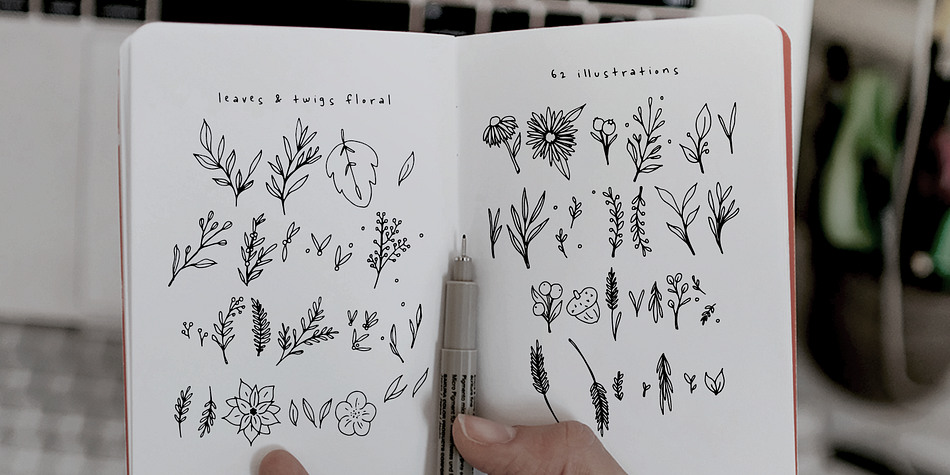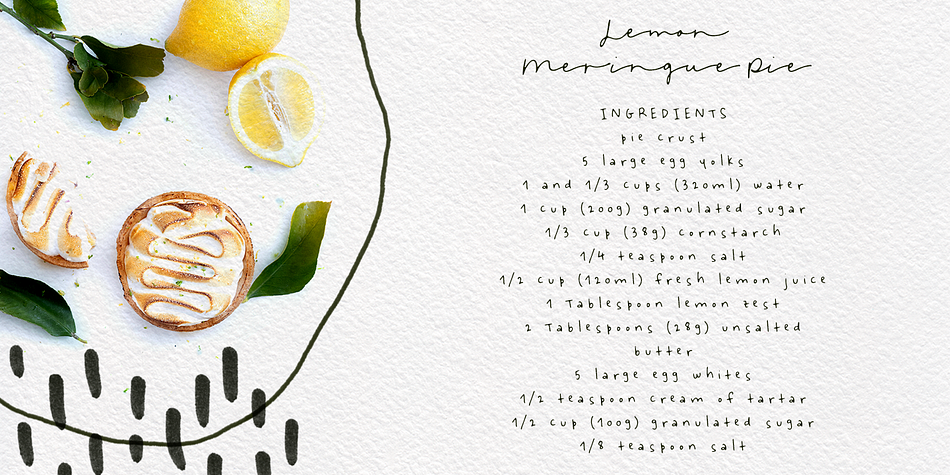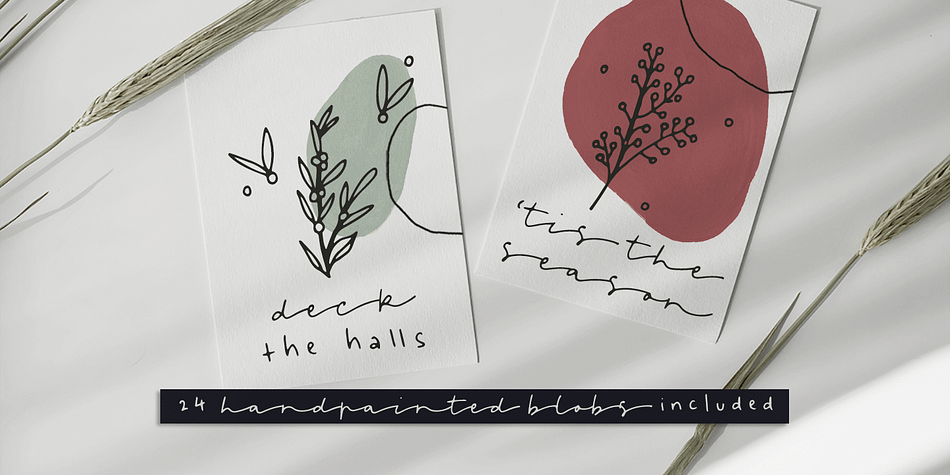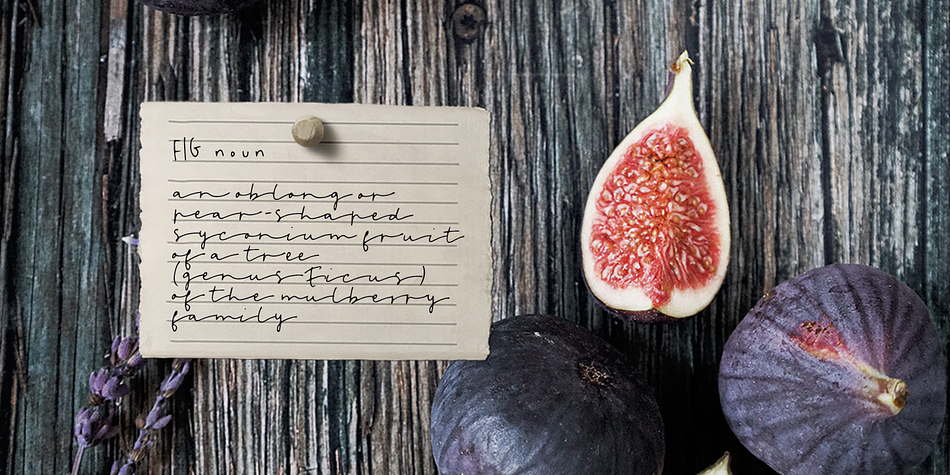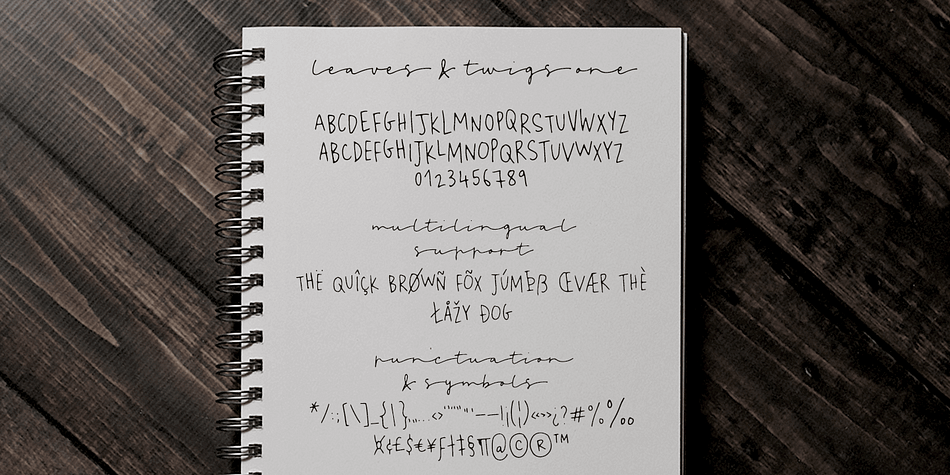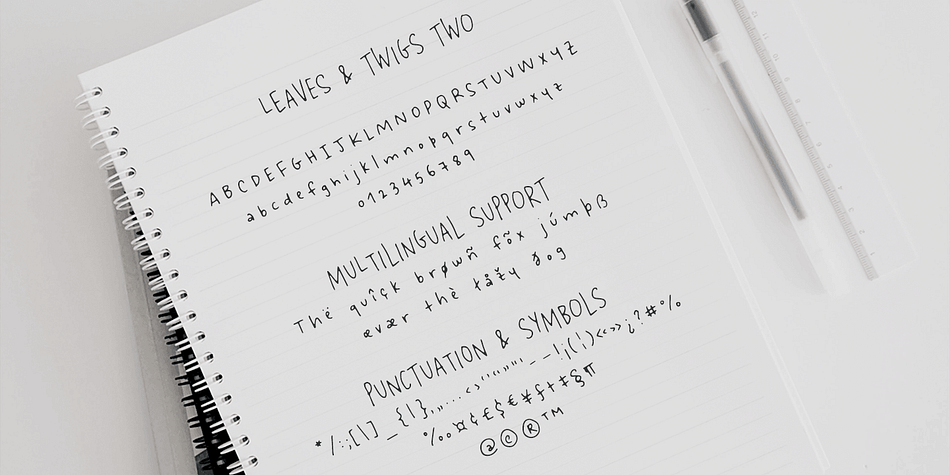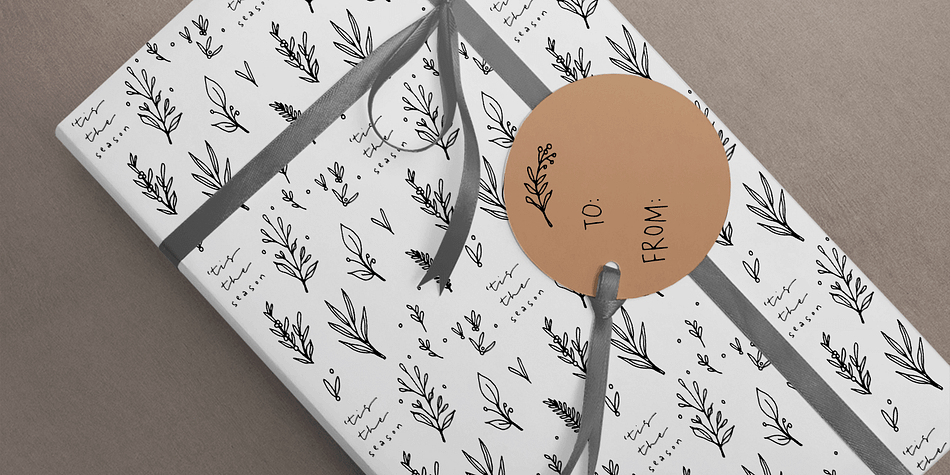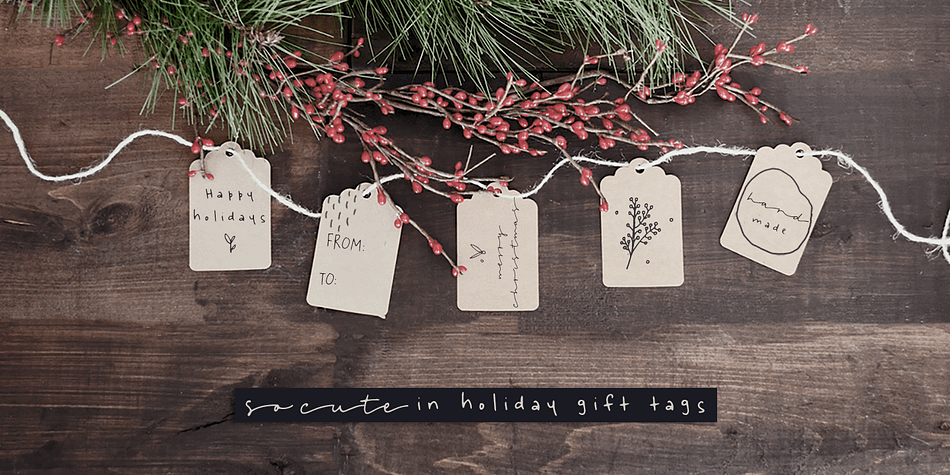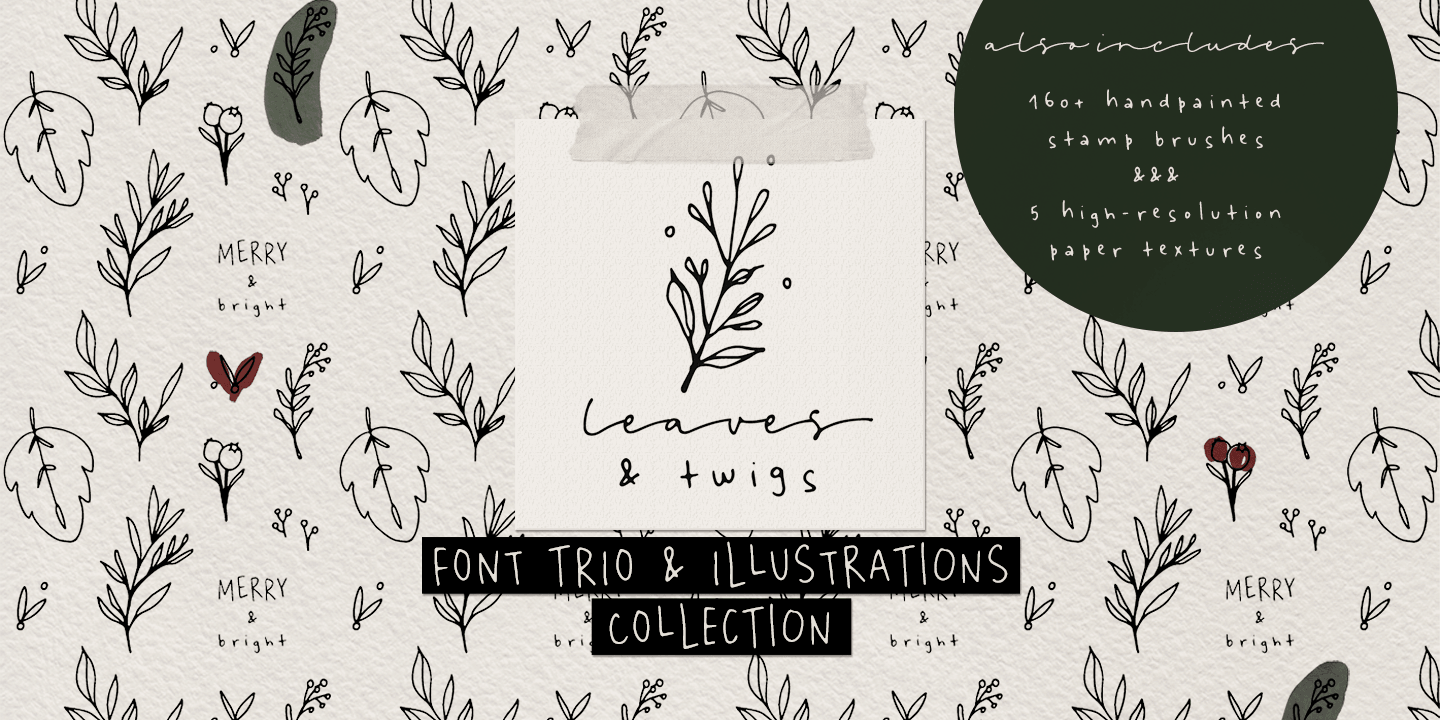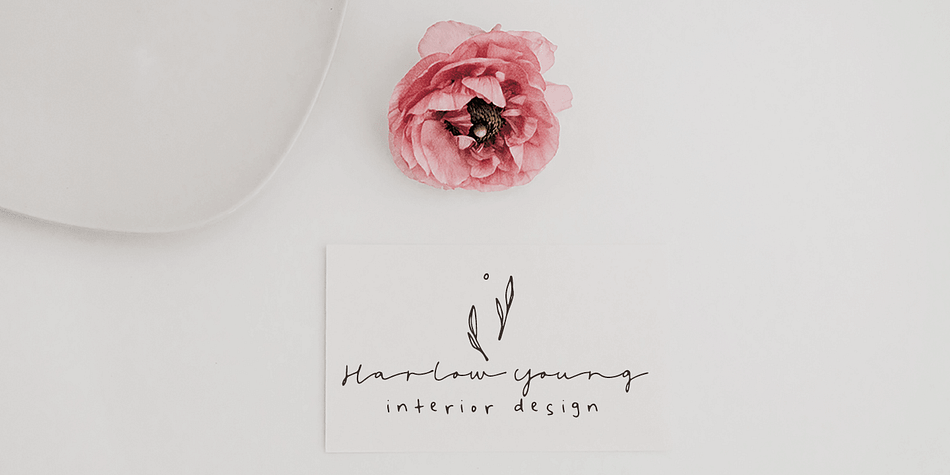
Designed by Ana Parracho, Leaves and Twigs is a hand drawn, modern calligraphy and dingbat font family. This typeface has eight styles and was published by Ana's Fonts.
Leaves and Twigs is a handwritten font trio and floral illustrations collection with lots of bonus goodies, that is perfect for logotype design, branding and packaging, and social media posts.
Just in time for the holidays, Leaves and Twigs is a also perfect for homemade seasonal designs (such as postcards, prints, and present tags).
Included in this collection:
- a tall, all-caps sans serif font - with a slant alternative
- a small, spaced sans serif font - with a jumpy alternative
- a spaced script font - with a slant alternative
- a floral illustrations dingbat font - with a blackout alternative
All written with the same pen, at the same size, so that the line width is consistent throughout the collection, for easy pairing (floral illustrations are sized down by 4x).